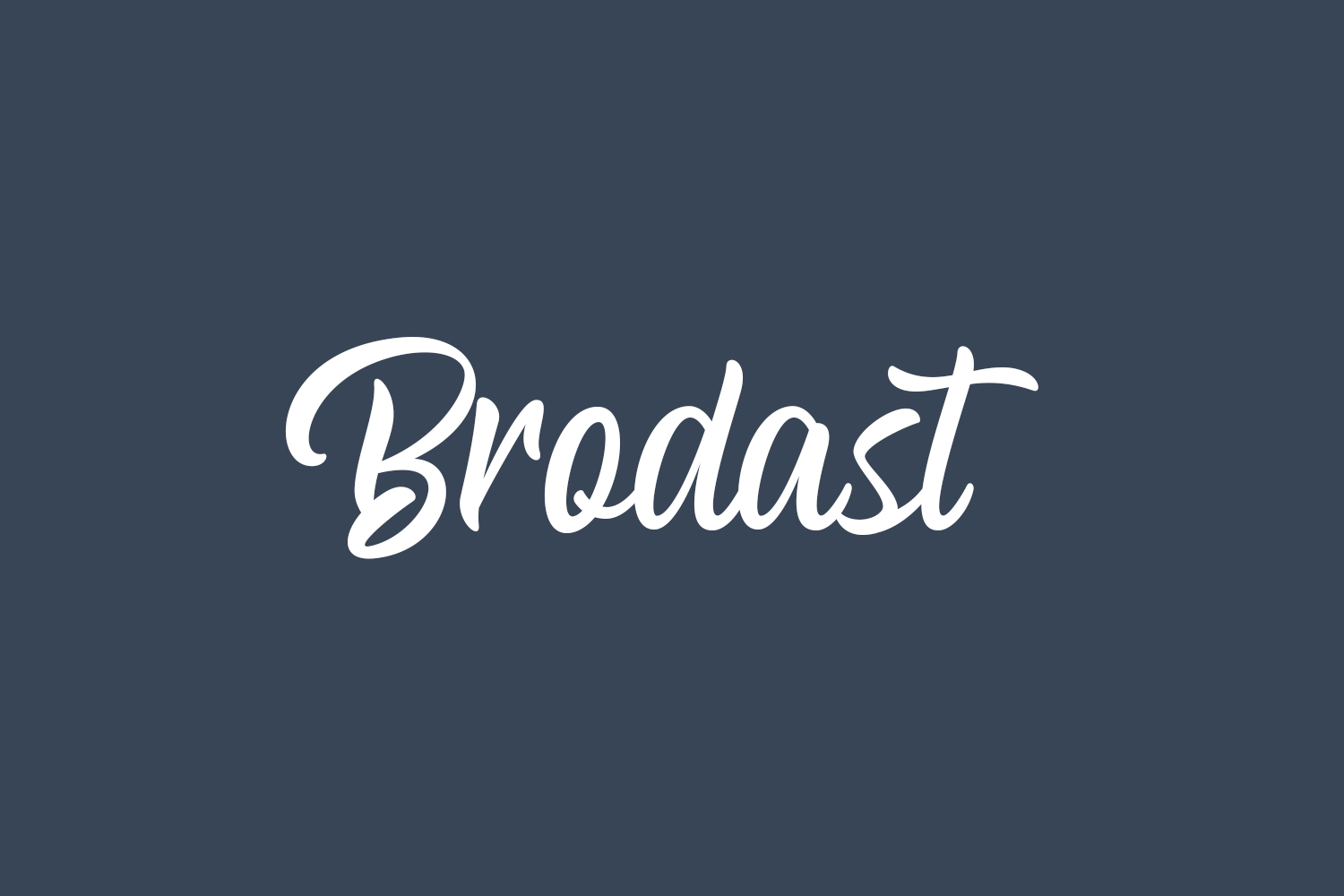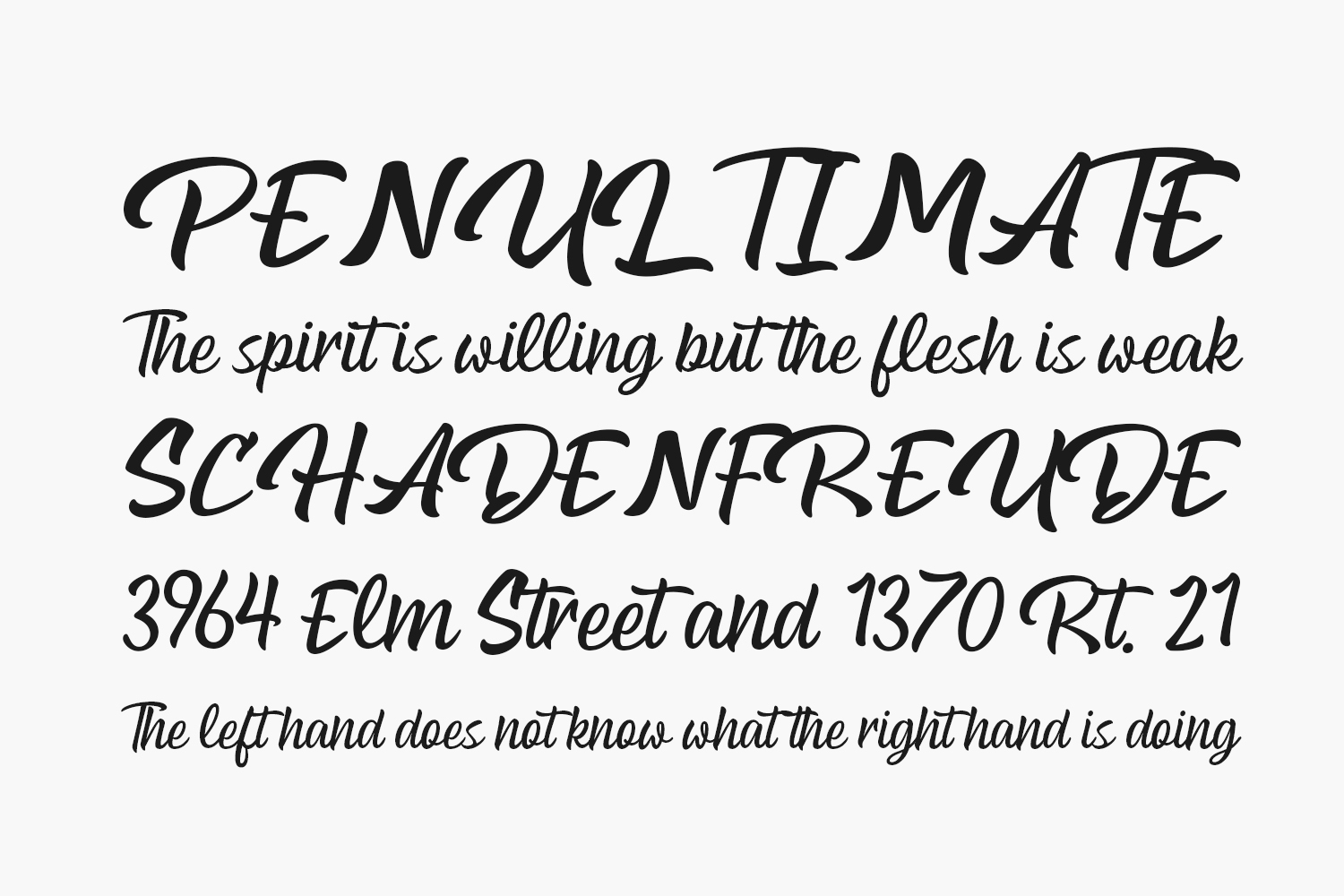
Experience the allure of Brodast Free Font, an exquisite and audacious handwritten font meticulously designed to bestow a touch of elegance upon your headline and logotype endeavors. This remarkable typeface emanates strength, confidence, and vitality, infusing your designs with a plethora of nostalgic charm. Brodast Free Font is free for personal use only. Please purchase the full version for commercial use.
Designed by Ahwe Project